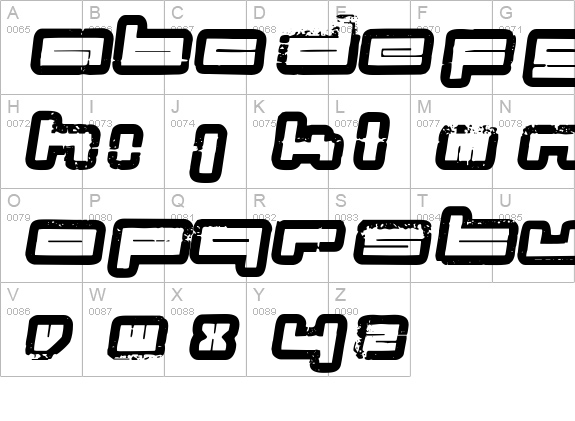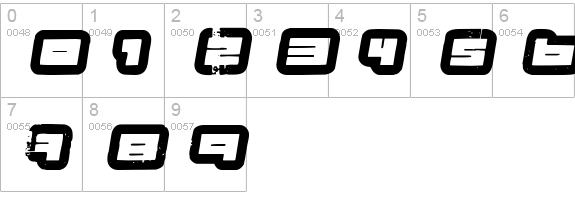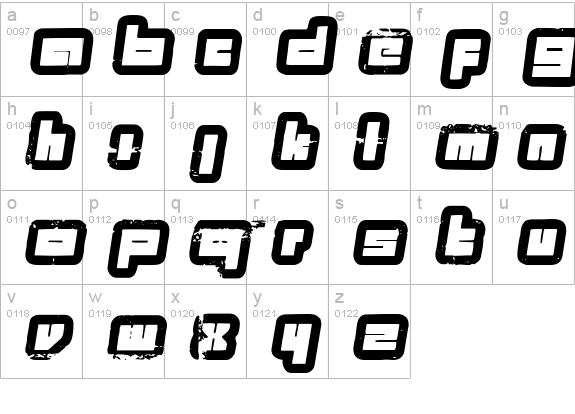
The fenotype font project is an exceptional endeavor that showcases the incredible versatility and creativity of typography. With its vast collection of meticulously crafted fonts, this project offers an expansive range of options for designers, artists, and creatives alike. What sets the fenotype font project apart is not only the sheer number of fonts available but also the exceptional quality and attention to detail in each design. From elegant and sophisticated serif fonts to quirky and playful display fonts, this project truly has something for every project and aesthetic. One of the most remarkable aspects of the fenotype font project is that it is freely available to download at FontsMarket.com. This means that designers and enthusiasts can access this treasure trove of fonts without any financial constraints or limitations. The creators of the project have generously made their work accessible to all, allowing for boundless creativity and inspiration. Whether you're working on a branding project, designing a website, or simply looking to add a touch of uniqueness to your personal creations, the fenotype font project is an invaluable resource. Its diverse range of fonts ensures that you'll find the perfect typeface to elevate your work and captivate your audience. Discover the power of fenotype fonts and unlock a world of possibilities. Download this extraordinary collection of fonts for free at FontsMarket.com and let your creativity soar.